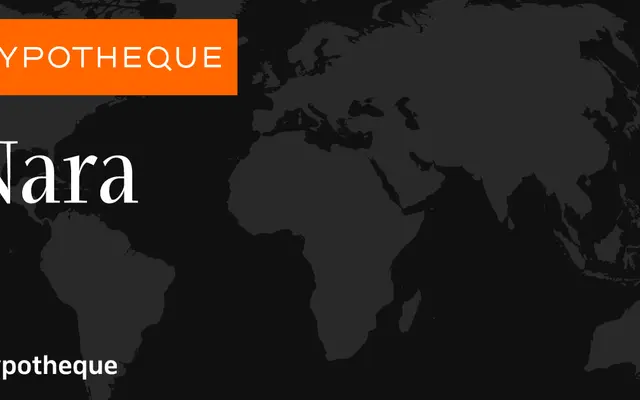
A type system from Typotheque pairing a humanist serif and a sans companion, each available in five weights with Cursive and Italic variants across a variable format.
Nara is a dual-family system comprising a serif and a sans, both running from Light to Black with Cursive and Italic cuts at each weight. The variable font spans the full range, and individual styles are named after cities from Amsterdam to Ouagadougou, reflecting the family's broad intended reach. The Cursive variant sits between upright and italic, giving the system an unusual expressive register suited to editorial and cultural contexts.
Nara pairs a serif family with a companion sans, and its Cursive and Italic variants alongside city-named styles suggest a humanist serif foundation with calligraphic influences. The system structure and Typotheque's design heritage point firmly toward humanist serif classification.